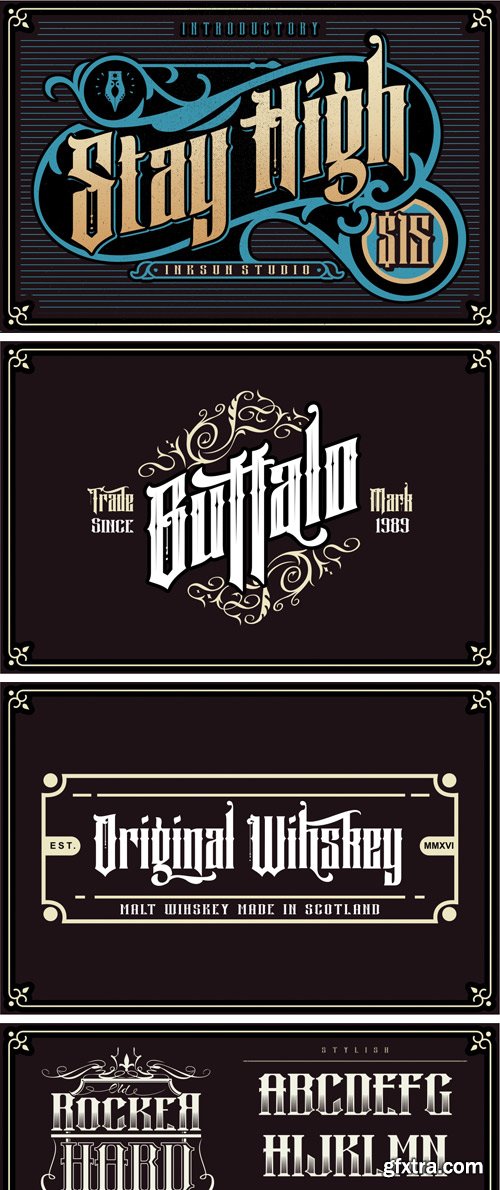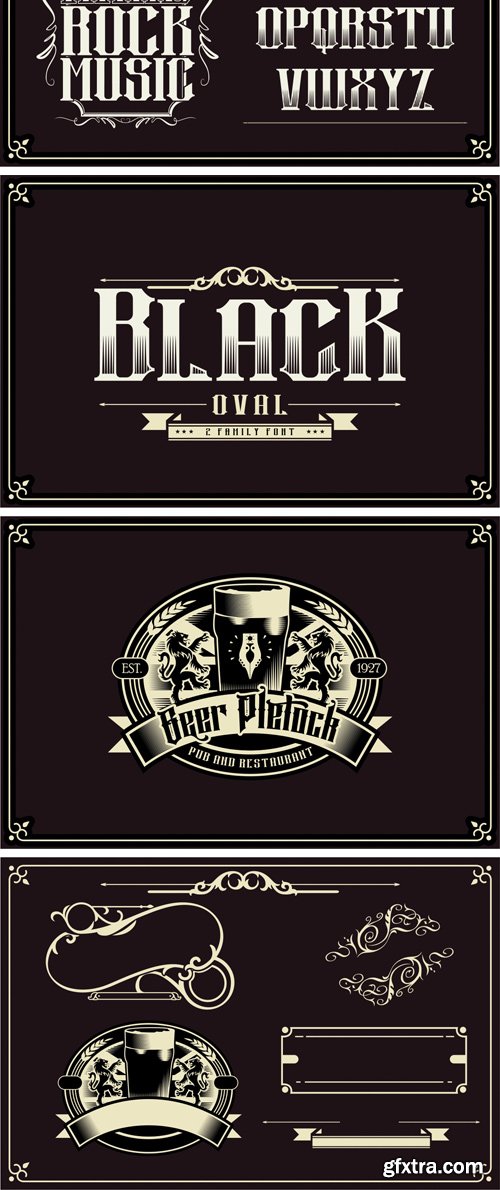
Stay High, is a font with a blackletter style peppered with modern vintage. then added with two vintage "Black Oval" fonts as well, these two fonts are perfect for your creative work, such as Poster, t shirt, logo, Label and everything else.